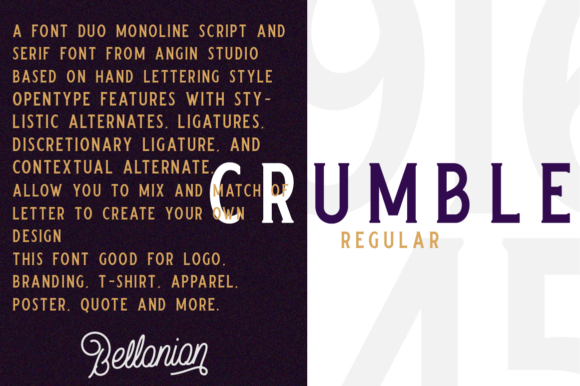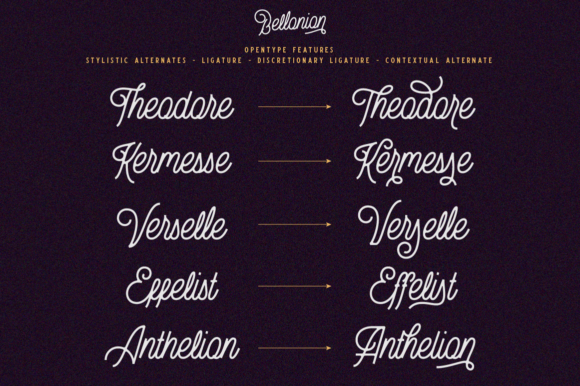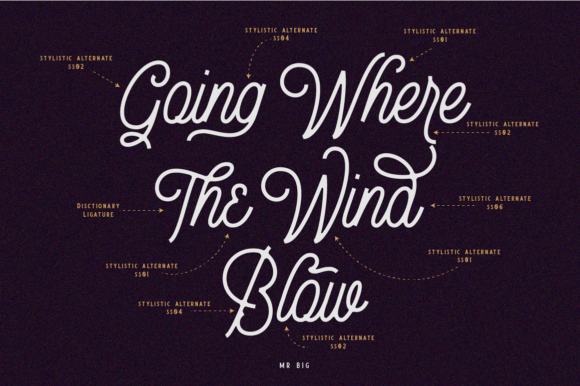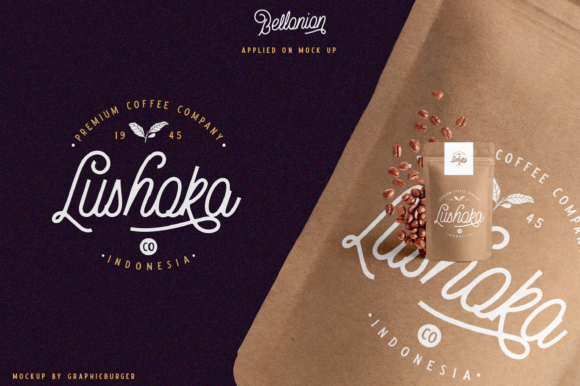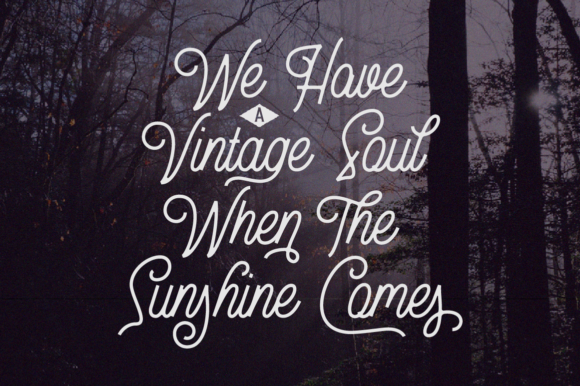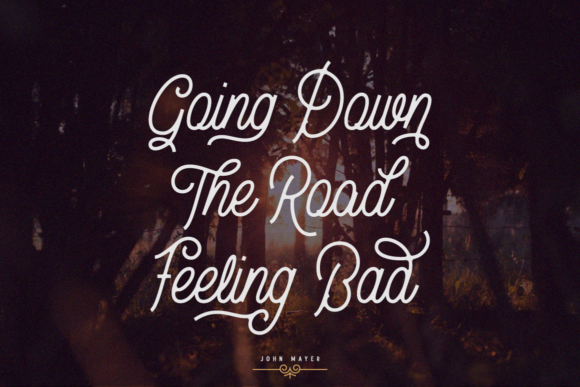
Discover the Allure of the Bellonion Font
Have you ever stumbled upon a font that sparks an idea and sets your creativity ablaze? That’s exactly what happened to us when we first laid eyes on the Bellonion Font. Its elegant, cursive lines seemed to dance across the page, whispering stories of sophistication and style.
The Bellonion Font is a stunning, modern script font designed to elevate any editorial or branding project. Its authentic charm is sure to captivate audiences and leave a lasting impression. Whether you’re a seasoned designer or just starting out, this versatile font is a valuable addition to your toolkit.
With its unique blend of elegance and playfulness, the Bellonion Font is a must-have for designers looking to add a touch of sophistication to their work. So why settle for ordinary when you can make a statement with the Bellonion Font?
- Unique Characteristics: The Bellonion font features a distinctive, elegant script style with intricate connections between letters, making it perfect for formal and informal designs alike.
- Font Style: Bellonion is available in both Regular and Italic styles, allowing for added flexibility and creativity in design applications.
Bellonion Font Review
Initially, I was drawn to the Bellonion Font due to its unique and quirky aesthetic ✨. The font’s playful, handwritten feel makes it perfect for creative projects and titles that require a touch of whimsy. The font’s versatility allows it to be used in a variety of contexts, from branding and advertising to digital media and print materials.
One of the standout features of the Bellonion Font is its excellent legibility, making it suitable for both small and large font sizes ✨. The font’s high x-height and open letterforms ensure that text remains clear and readable, even at close range.
- ⚠️ The font’s quirky nature can sometimes make it difficult to read in certain contexts, particularly in formal or professional settings.
- ⚠️ The font’s lack of a comprehensive character set may limit its use in languages that require a wider range of characters.
- ⚠️ The font’s high x-height can sometimes make it appear cluttered or overwhelming when used in large quantities.
Overall, the Bellonion Font is a great choice for designers looking to add a touch of personality to their projects ✨. While it may have some limitations, its unique aesthetic and excellent legibility make it a valuable addition to any design toolkit.
Common Use Cases for Bellonion Font
The Bellonion font is suitable for a variety of applications, including branding, advertising, and digital design. Use the font to create eye-catching headlines, titles, and captions.